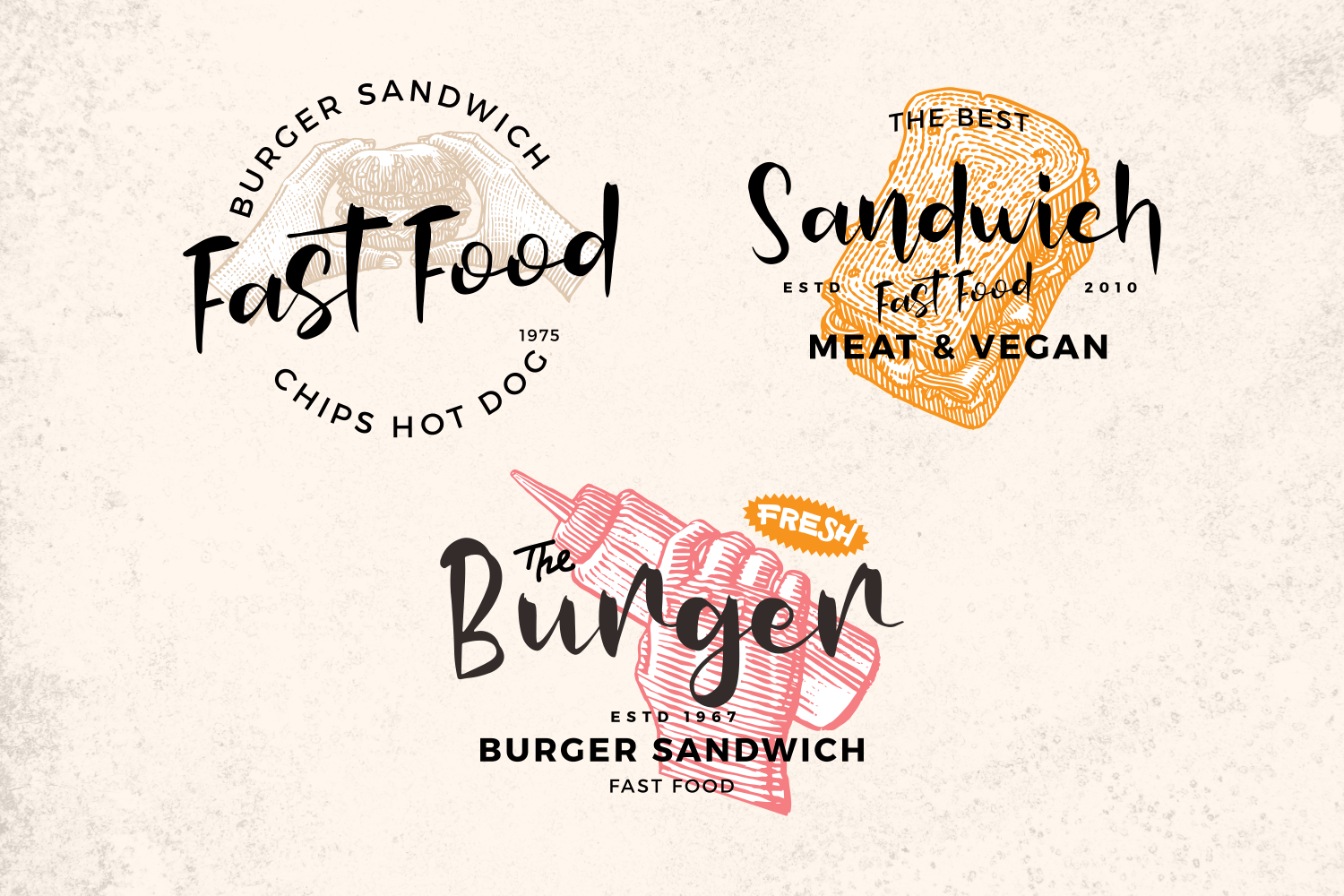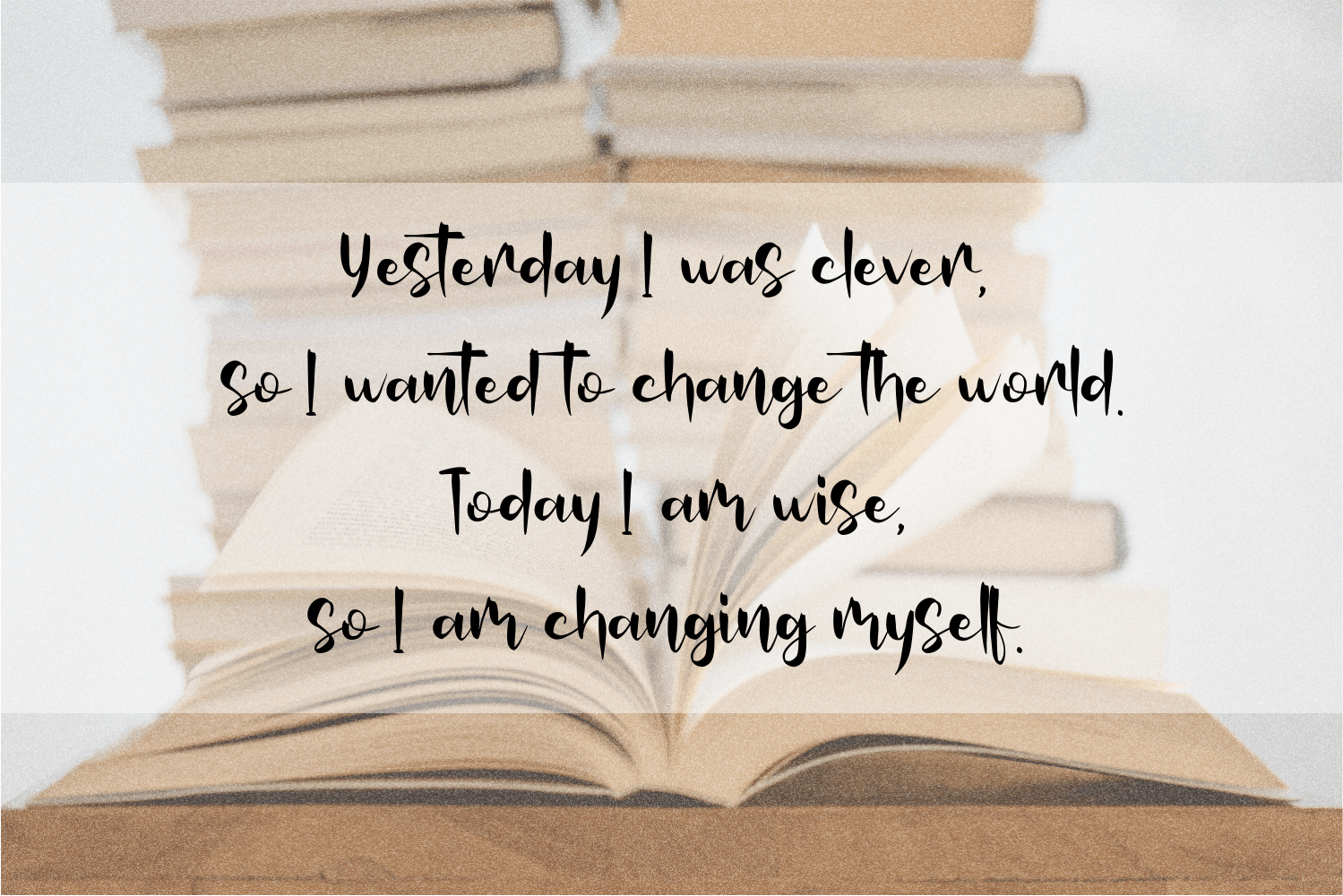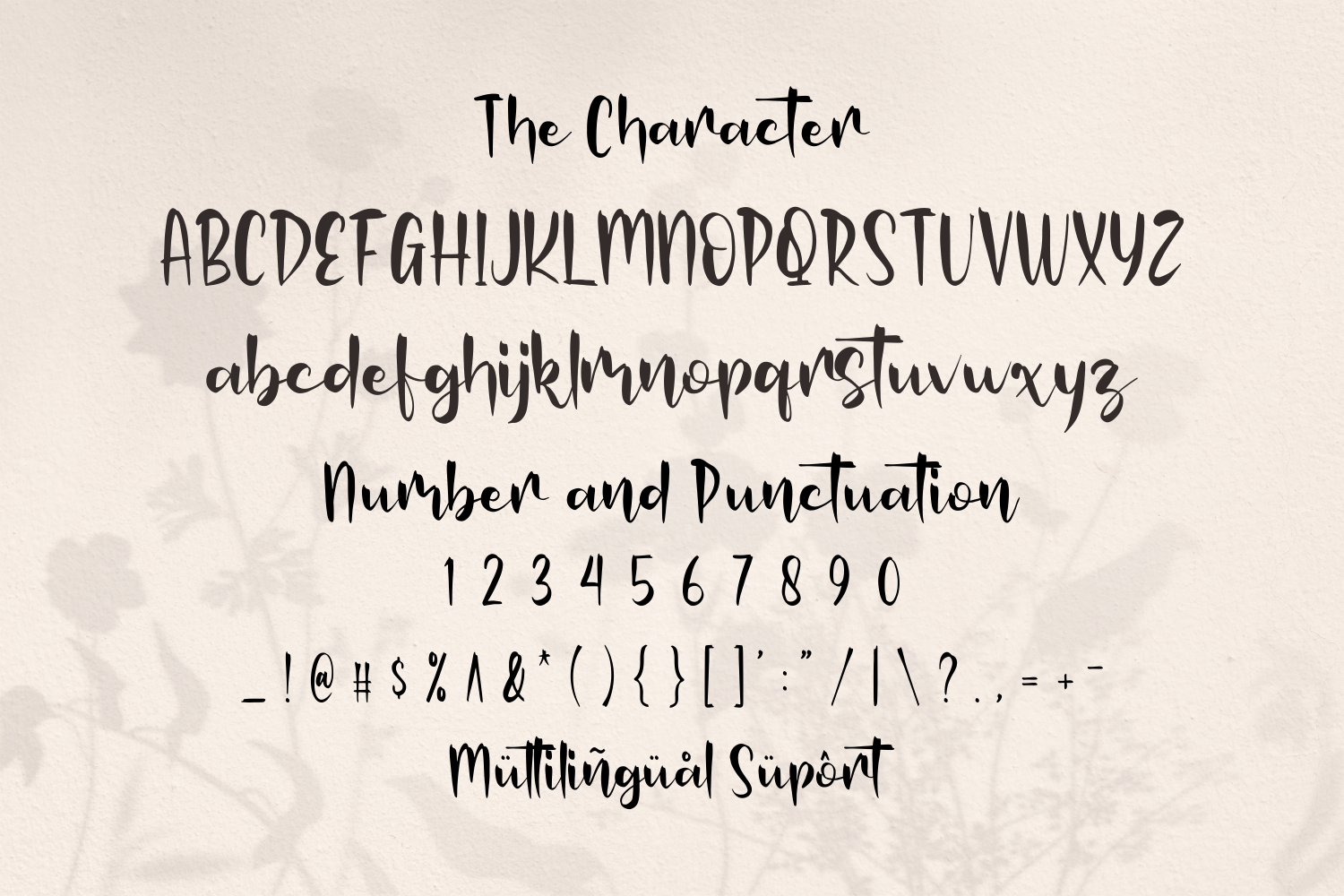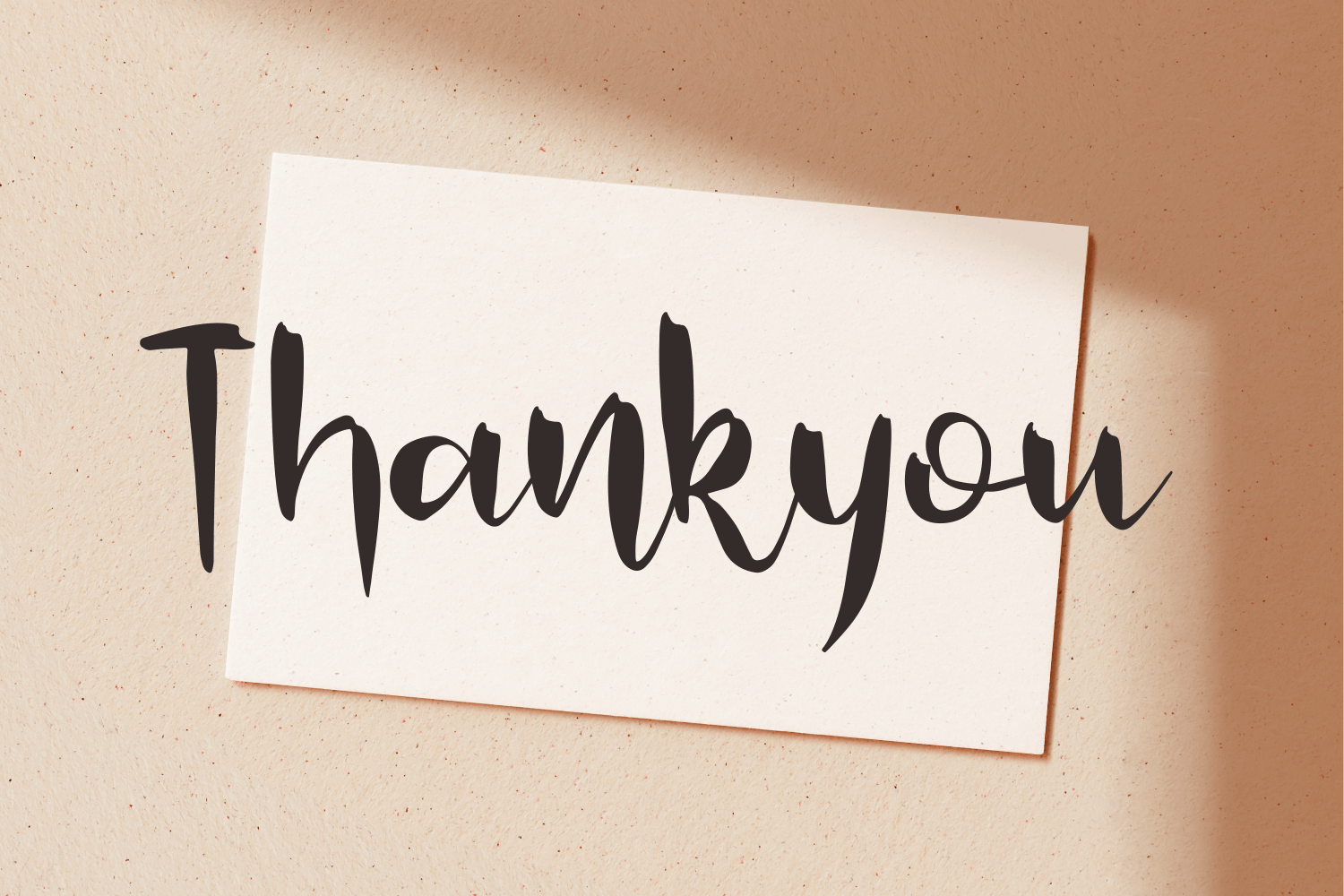
Krasty Chips Font
Krasty Chips Script Font is a lovely and delicate script font that exudes elegance and class. This font was particularly crafted for those who need a beautiful and refreshing look to their designs.